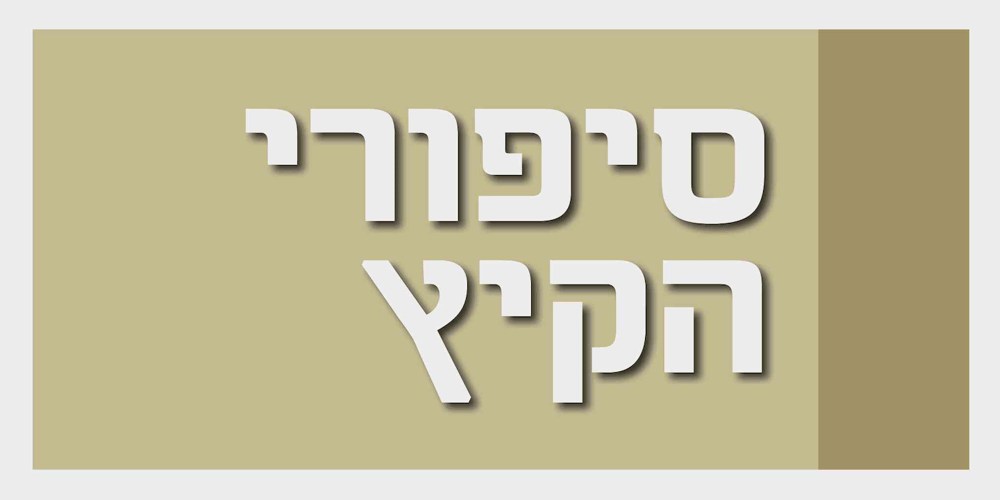
Netanya MF
Netanya MF font
Netanya MF Font Family was designed by Eliyahu Fried and published by Masterfont. Netanya MF contains 2 styles and family package options. Rounded san serif family with low contrast and high legibility.